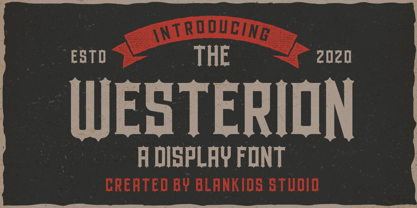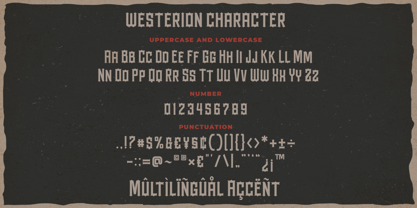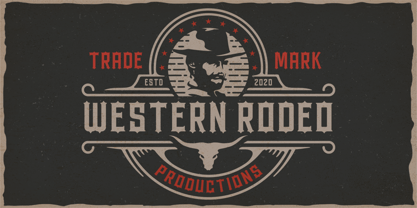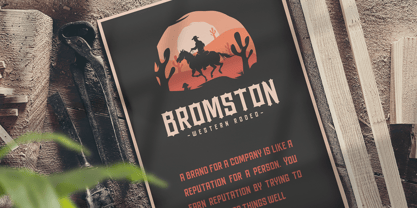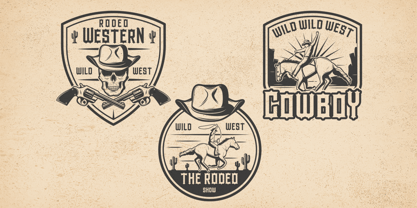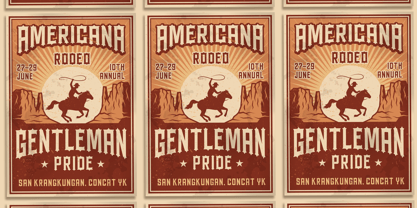
Westerion
by Blankids
The Westerion Font Family was designed by Bangkit Tri Setiadi and published by Blankids. Westerion contains 0 styles.
Introducing of our new product the name is Westerion a Vintage Display Font. Westerion inspired by Vintage style this font is a fun theme very good for display, tshirt design, craft, quote sign, logotype and etc